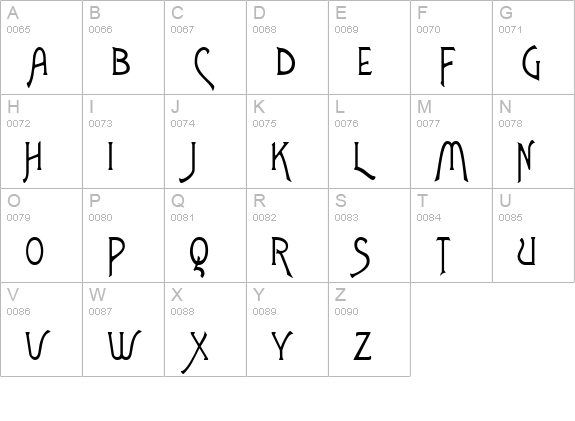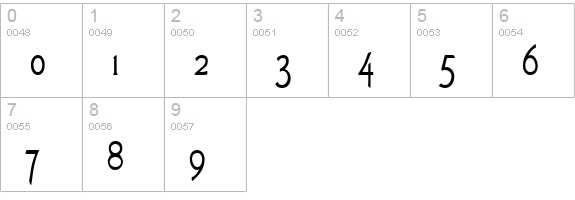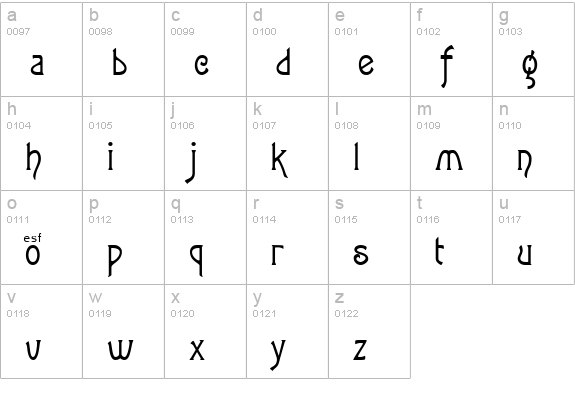
Neaten Font Details
Neaten font is a modern and stylish typeface that exudes elegance and sophistication. Its clean lines and sleek design make it perfect for a wide range of design projects, from branding to advertising to social media graphics. The font is versatile and easy to read, making it suitable for both headers and body text. Neaten font is available for free download at FontsMarket.com, allowing you to add a touch of class to your projects without breaking the bank. Don't miss out on this opportunity to elevate your designs with the Neaten font today!